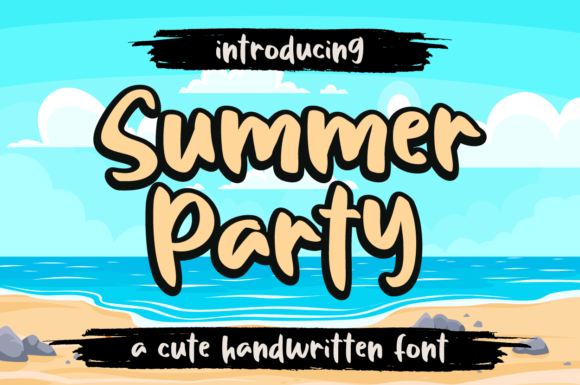
About Summer Party Font
Summer Party a new, fresh and simple handwritten font featuring well-rounded characters and a friendly style. It will look stunning on invitations, greeting cards, branding materials, business cards, quotes, posters, and more!